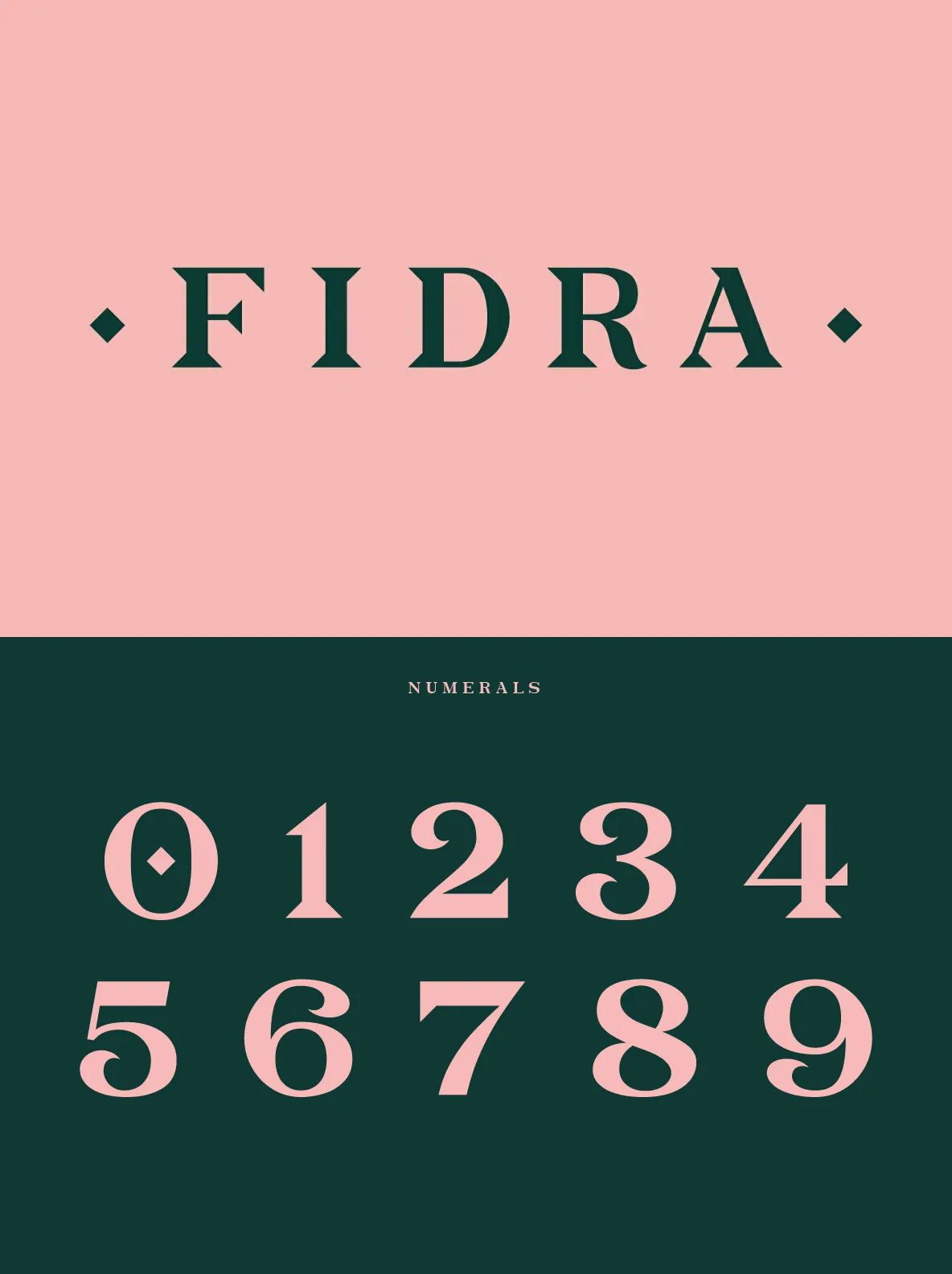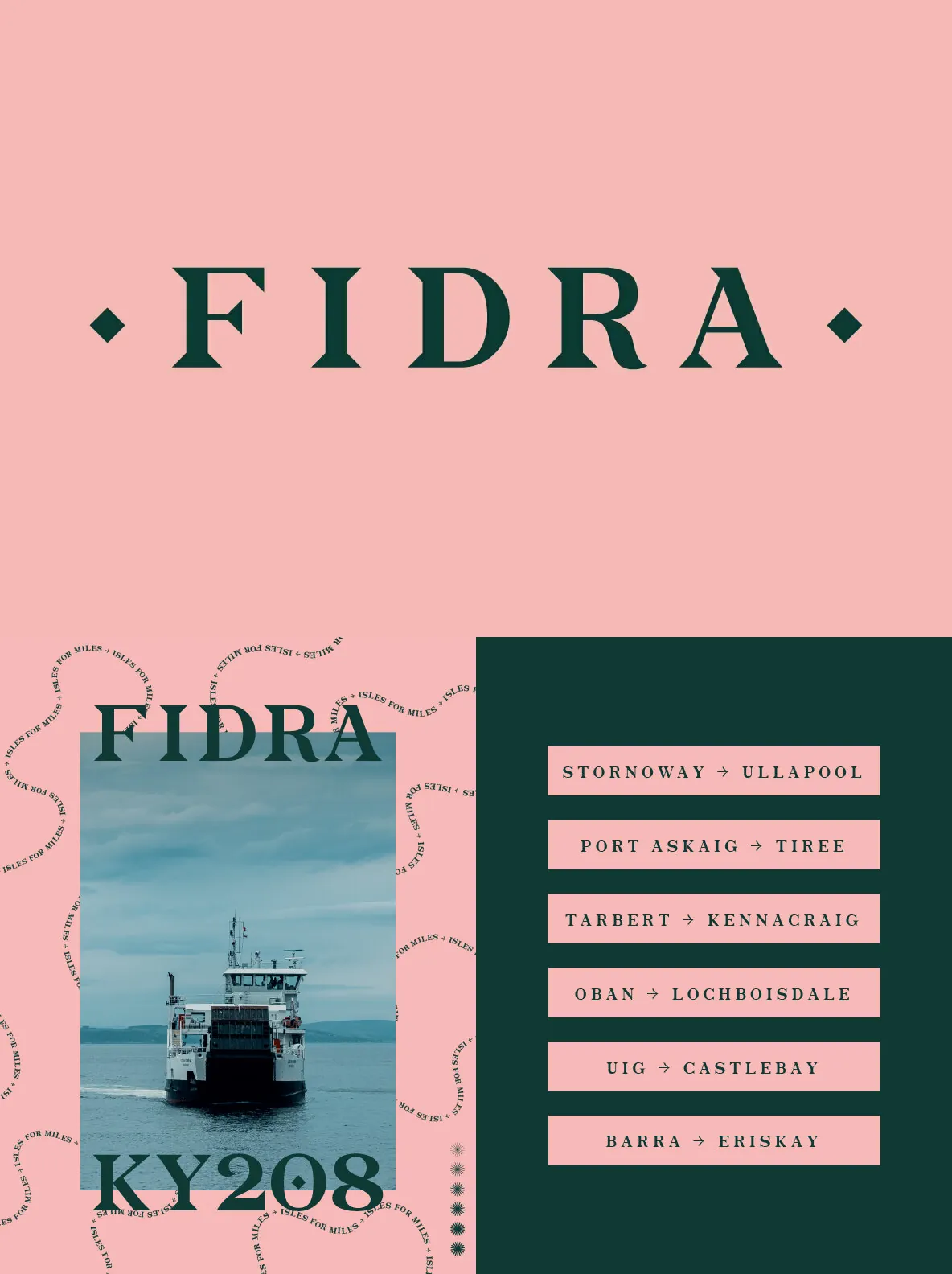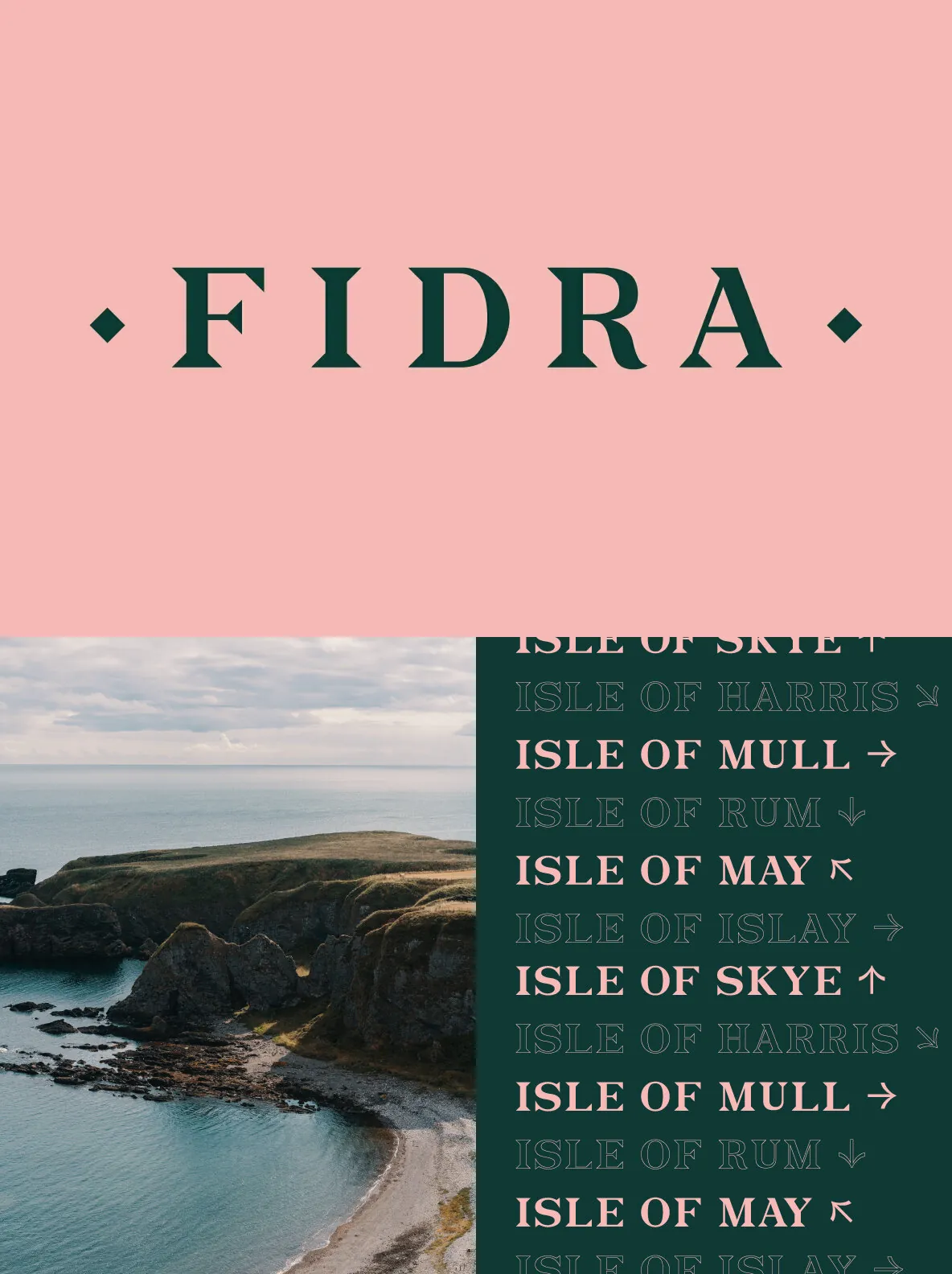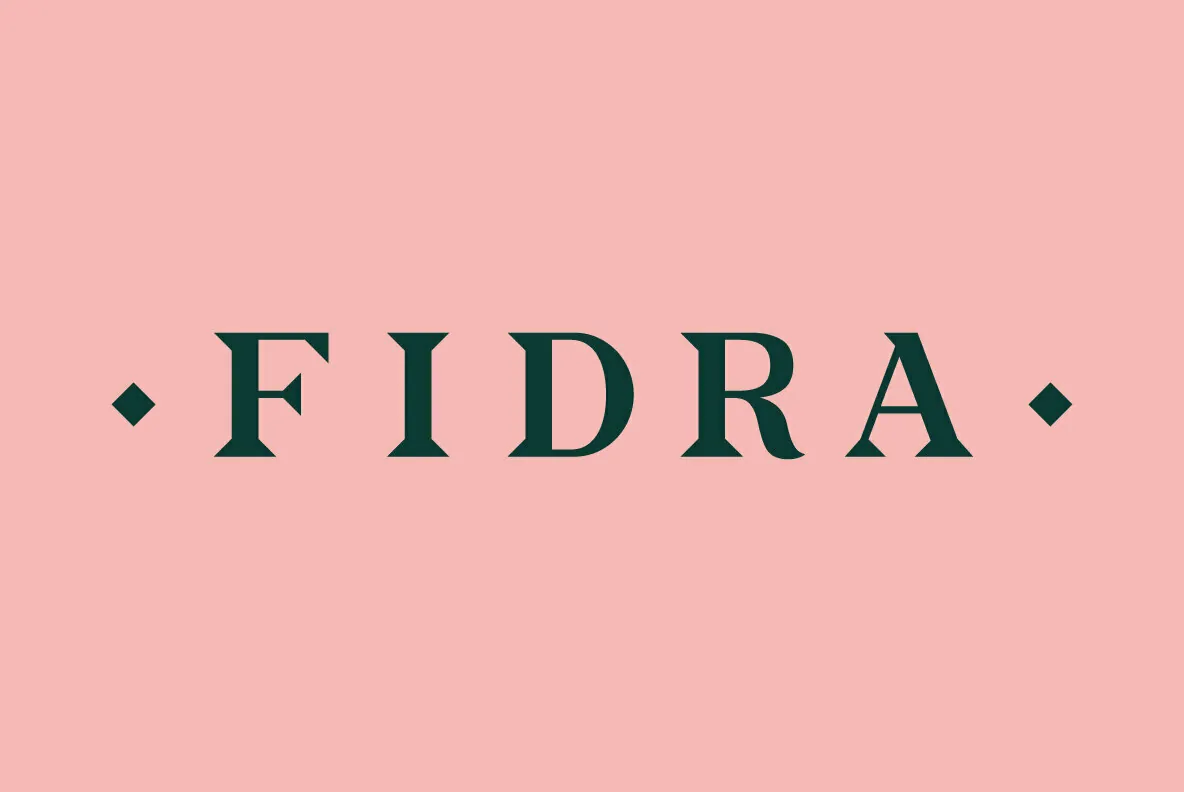
Fidra is a display typeface inspired by Scotland’s rugged coast. Influenced by the charismatic latin typefaces of the old type foundries – In particular Scottish typefoundry Miller & Richard’s ‘Antique No.12’. Elegant latin detailing including curvaeous hooked terminals and sharp triangular serifs combine with a vertical stress axis for a contemporary aesthetic.